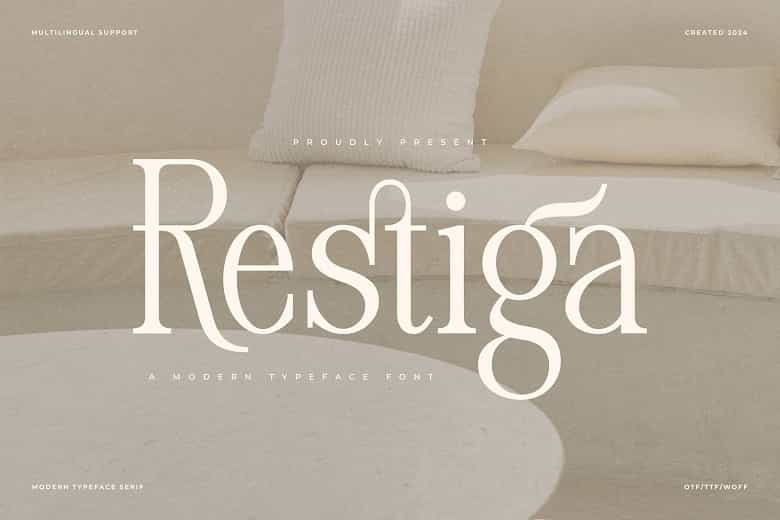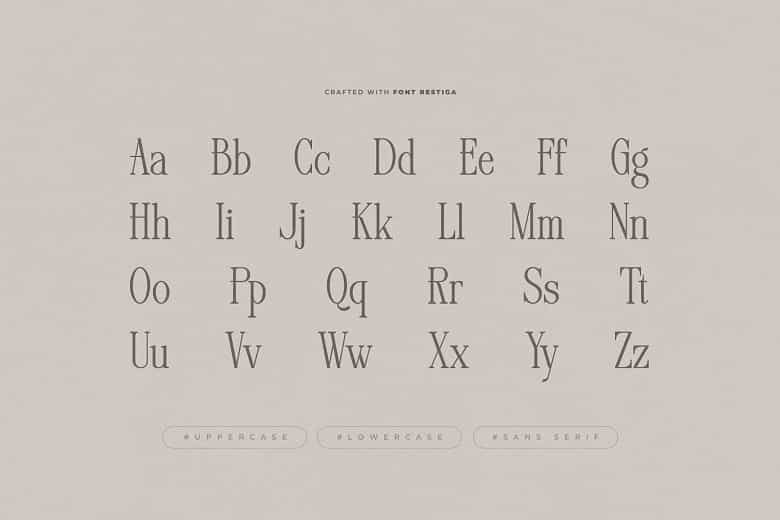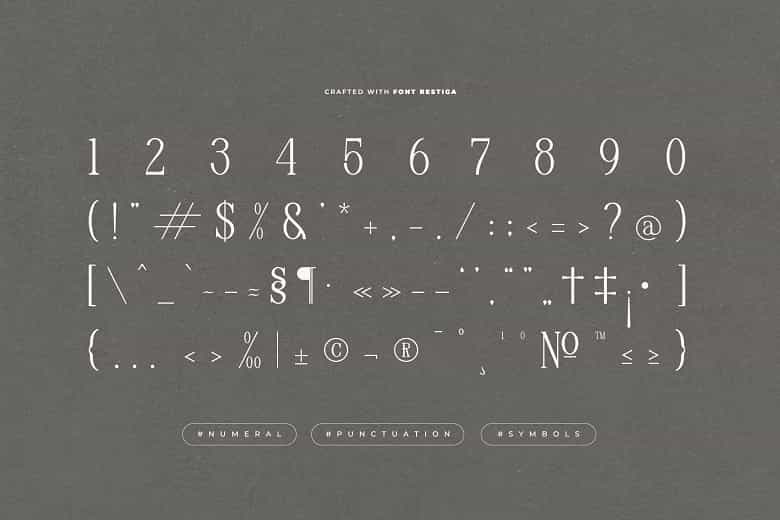
Restiga is a new modern serif font, from Denustudios, It’s suitable for any projects such as: logos, branding, home ware, product packaging, mug prints, quotes, posters, shopping bag designs, t-shirt designs, book cover designs, name card, invitation card designs, greeting card designs, label, and all the other beautiful projects that you have.